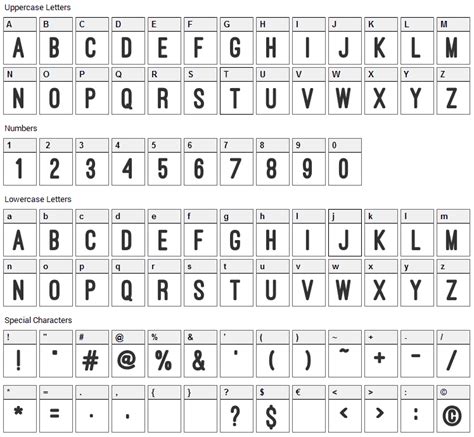
Hey guys! Are you on the hunt for a cool, distinctive font to jazz up your projects? Well, you might have stumbled upon the OSC Bahamassc Heavy Scitsc font , and you’re wondering if you can snag a free download. Let’s dive in and explore everything you need to know about this font, its features, and how to potentially get your hands on it. We’ll also cover the crucial aspects of licensing to ensure you’re using the font legally. So, let’s get started!
Understanding the OSC Bahamassc Heavy Scitsc Font
First things first, what exactly is the OSC Bahamassc Heavy Scitsc font ? This font is often sought after for its unique aesthetic. Usually, you’ll find it described as a bold, heavy-weight typeface with a distinct style, often suitable for headlines, titles, and other display purposes where you want to grab attention. The ‘Scitsc’ part likely refers to a specific design element or characteristic that sets it apart from other fonts, although the exact meaning can vary depending on the creator’s intent. When it comes to its visual style, the OSC Bahamassc Heavy Scitsc font generally has a strong presence, making it ideal for making a statement. Its boldness ensures that text stands out, making it a great choice for posters, logos, and any design where readability is key, even at a distance.
Finding a font like this can significantly enhance your designs. Think about it: a well-chosen font can transform a simple text into a piece of art. The OSC Bahamassc Heavy Scitsc font , with its heavy and potentially stylized design, can add a touch of personality and professionalism to your work. Whether you’re working on a personal project like creating a unique invitation or designing for a client, the right font can make a huge difference in how your message is perceived. The specifics of the font’s appearance, such as whether it includes serifs or is a sans-serif, and the particular style of the letters (e.g., condensed, extended, or italicized), also play a critical role. Each variation gives the font a unique feel, allowing designers to select the perfect font that matches the tone and message they want to convey. So, if you’re aiming for something striking and noticeable, the OSC Bahamassc Heavy Scitsc font could be a fantastic option. However, before you go ahead and download it, it’s essential to consider the licensing. More on that later!
The appeal of a bold font extends beyond mere aesthetics; it’s also about usability and effectiveness. In the context of graphic design, the typeface you choose greatly impacts how well your message connects with your target audience. A bold font conveys confidence and authority. The OSC Bahamassc Heavy Scitsc font , with its particular design features, might be perfect for conveying a sense of strength or innovation, which could be critical for branding and marketing materials. However, keep in mind that the best font for your project depends on your specific needs. What works well for a technology company’s website might not be suitable for a children’s book. The visual characteristics of a font can even impact how people perceive your brand. A bold font suggests reliability and modernity, while a lighter font might communicate elegance or sophistication. Therefore, while you’re considering the OSC Bahamassc Heavy Scitsc font , take the time to reflect on what you want to achieve with your design to ensure the font aligns perfectly with your goals. Getting the right font is about more than just finding something that looks cool – it’s about making a positive impression and helping your audience to connect with your brand or message.